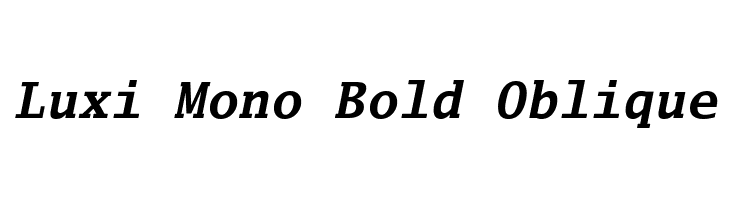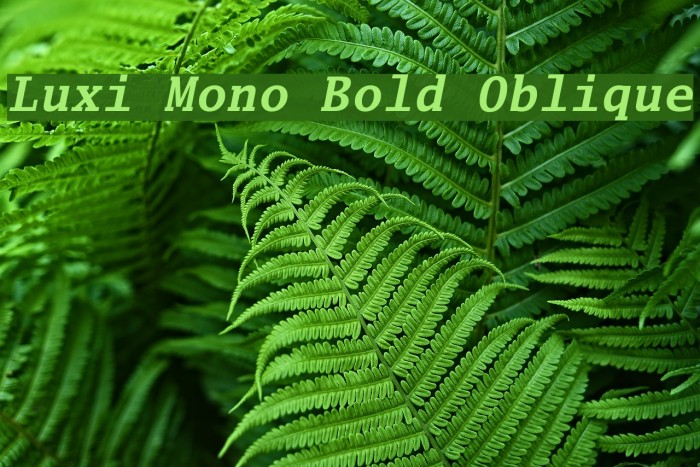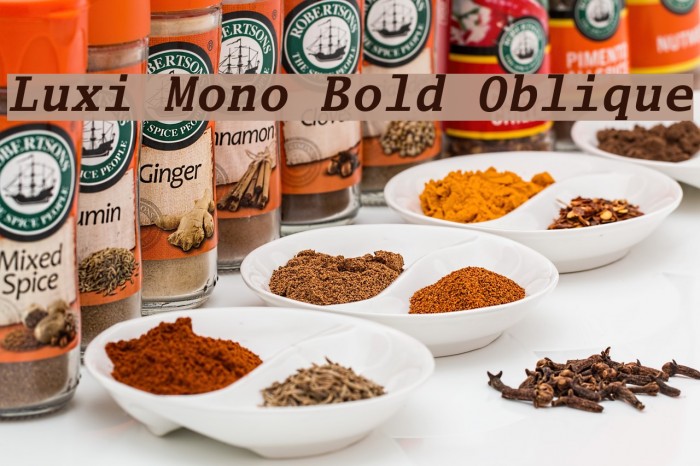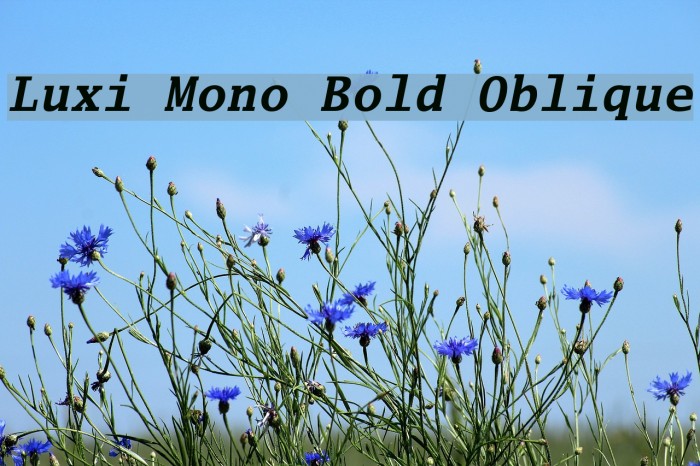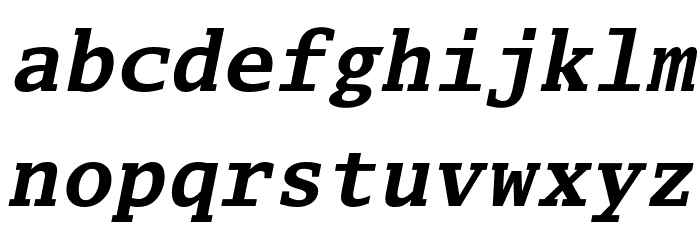
Luxi Mono Bold Oblique Font
Luxi Mono Bold Oblique Description
This font features a monospaced design with a bold and oblique style, offering a modern and technical appearance. Each character maintains equal width, providing a uniform and structured look. The bold weight enhances its visibility, making it suitable for emphasis in coding or technical documentation. The oblique slant adds a dynamic and contemporary touch, distinguishing it from traditional monospaced fonts. Its clean lines and consistent spacing make it highly legible, even in smaller sizes. The font includes a full set of uppercase and lowercase letters, numerals, and a variety of special characters, ensuring versatility for various applications.
A bold, oblique monospaced font with a modern, technical style from Uncategorized fonts.
- Proposed Projects: Ideal for coding environments, technical documentation, and any project requiring a modern, structured typeface.
- Use Case: Coding, Technical documentation, Emphasis in text